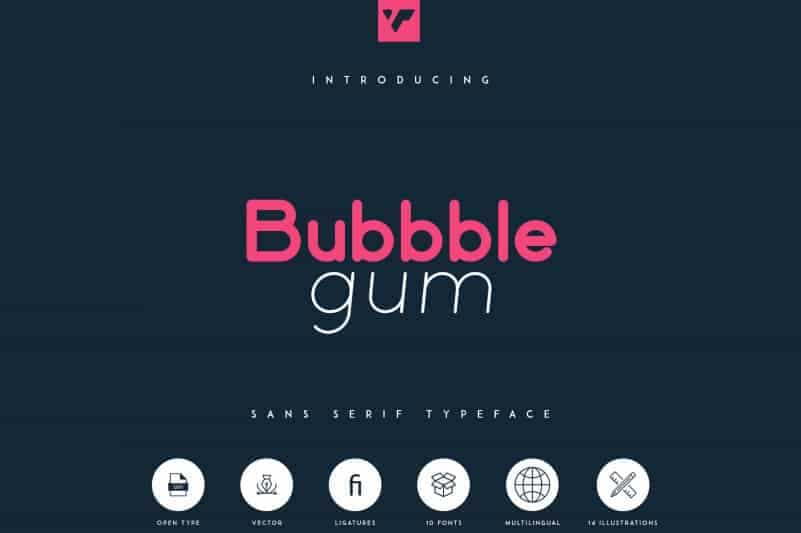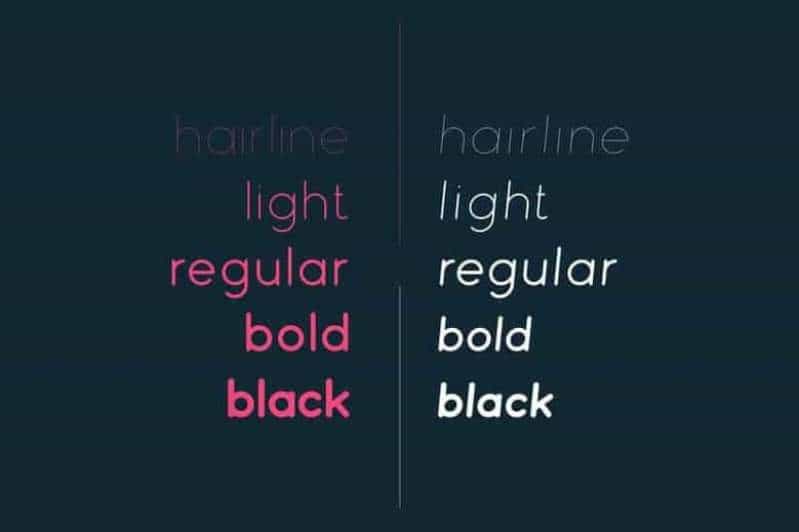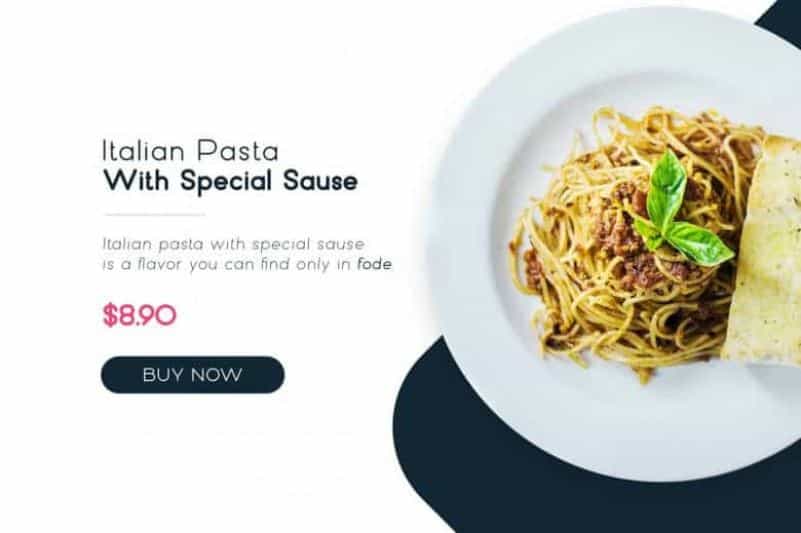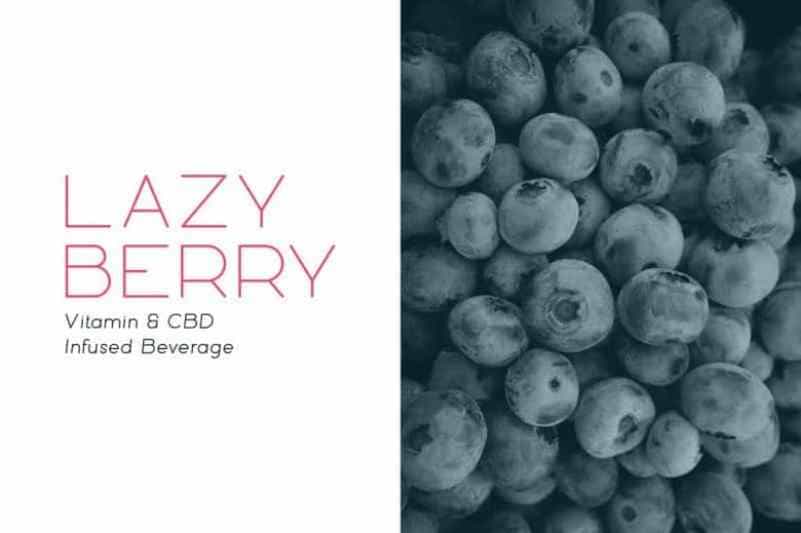
Bubbble Gum is a modern and rounded typeface, that comes with 10 fonts, including regular italic, italic and multilingual support. It’s a flexible typeface that can be used in small and large sizes.